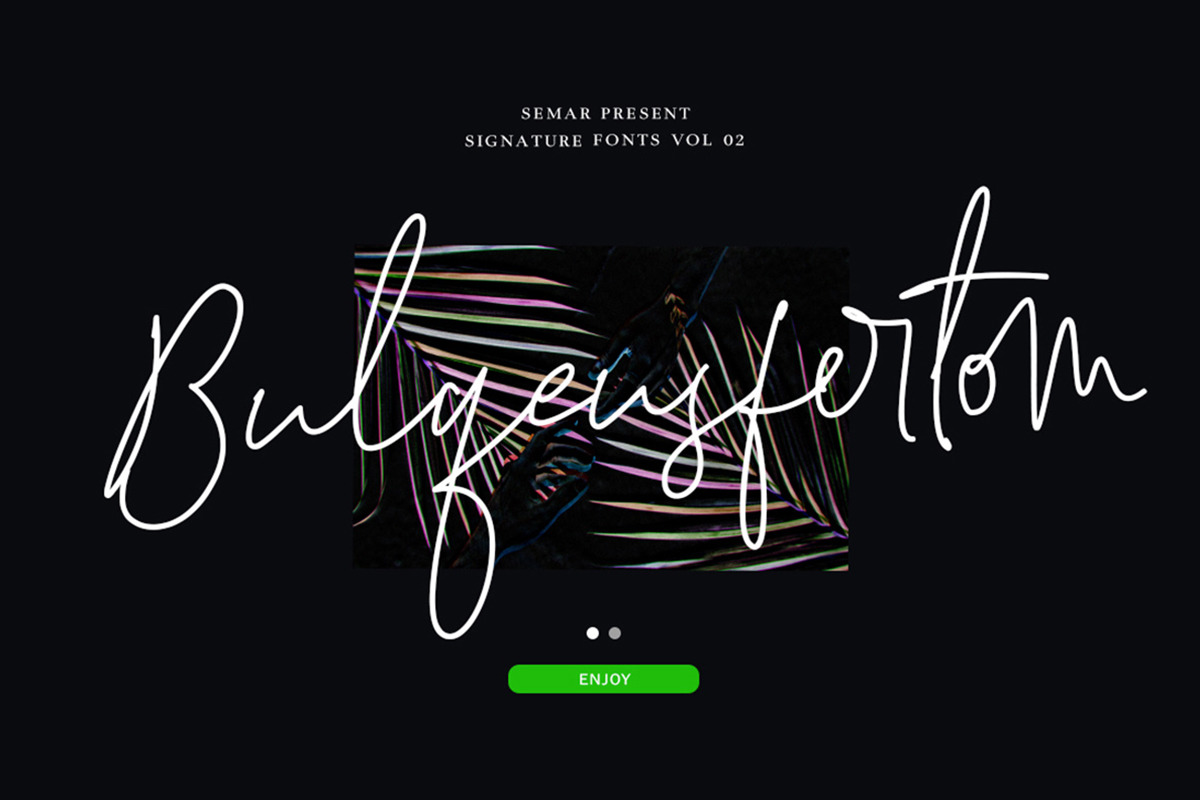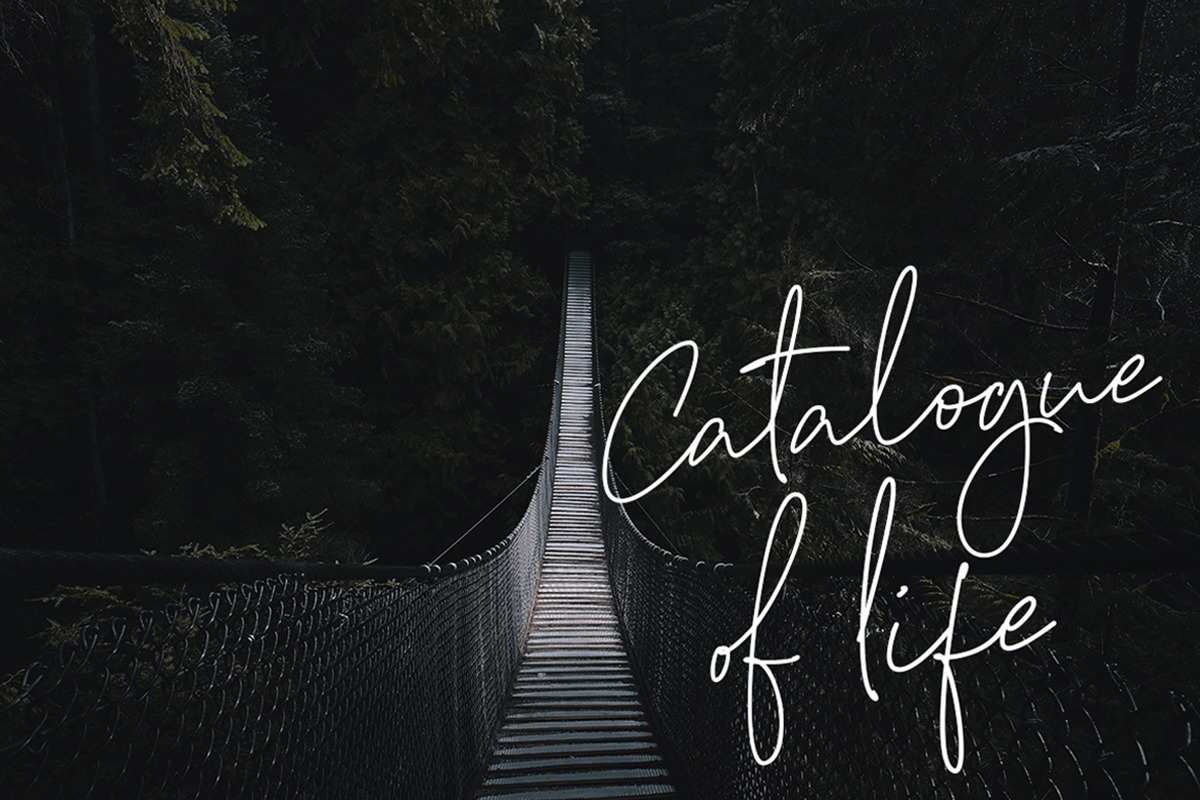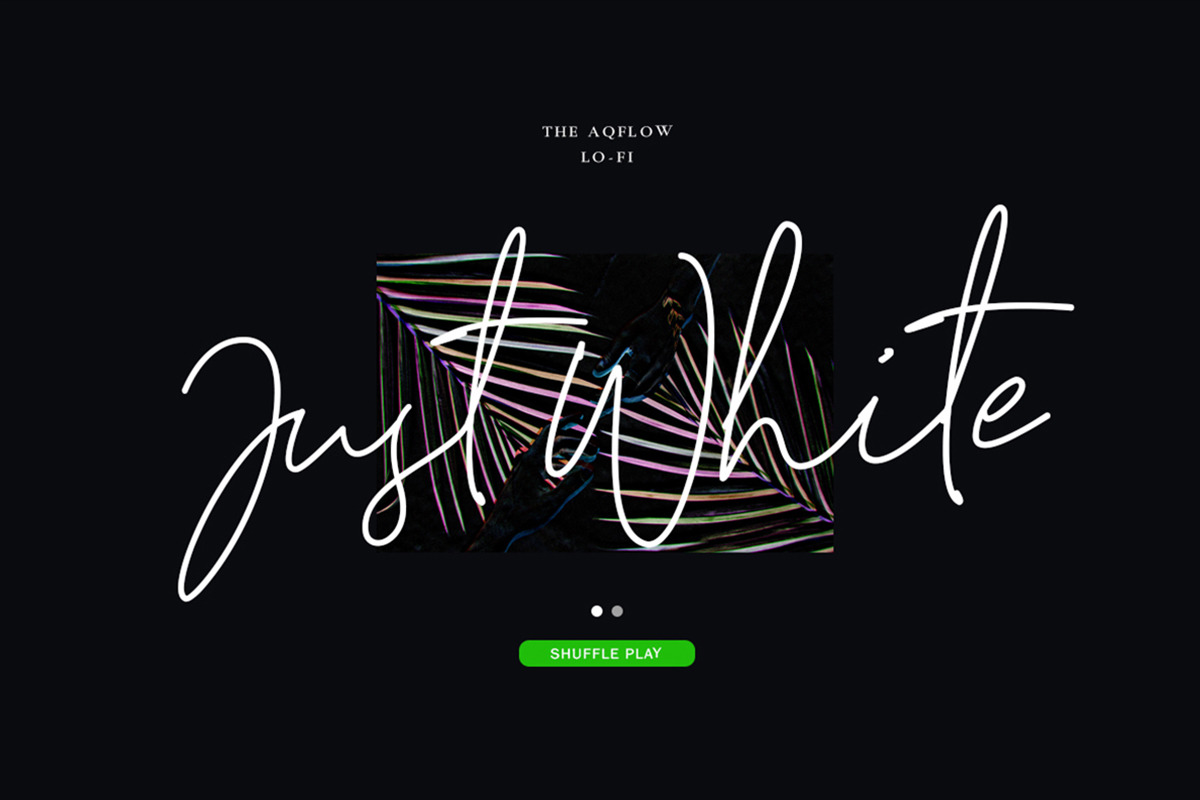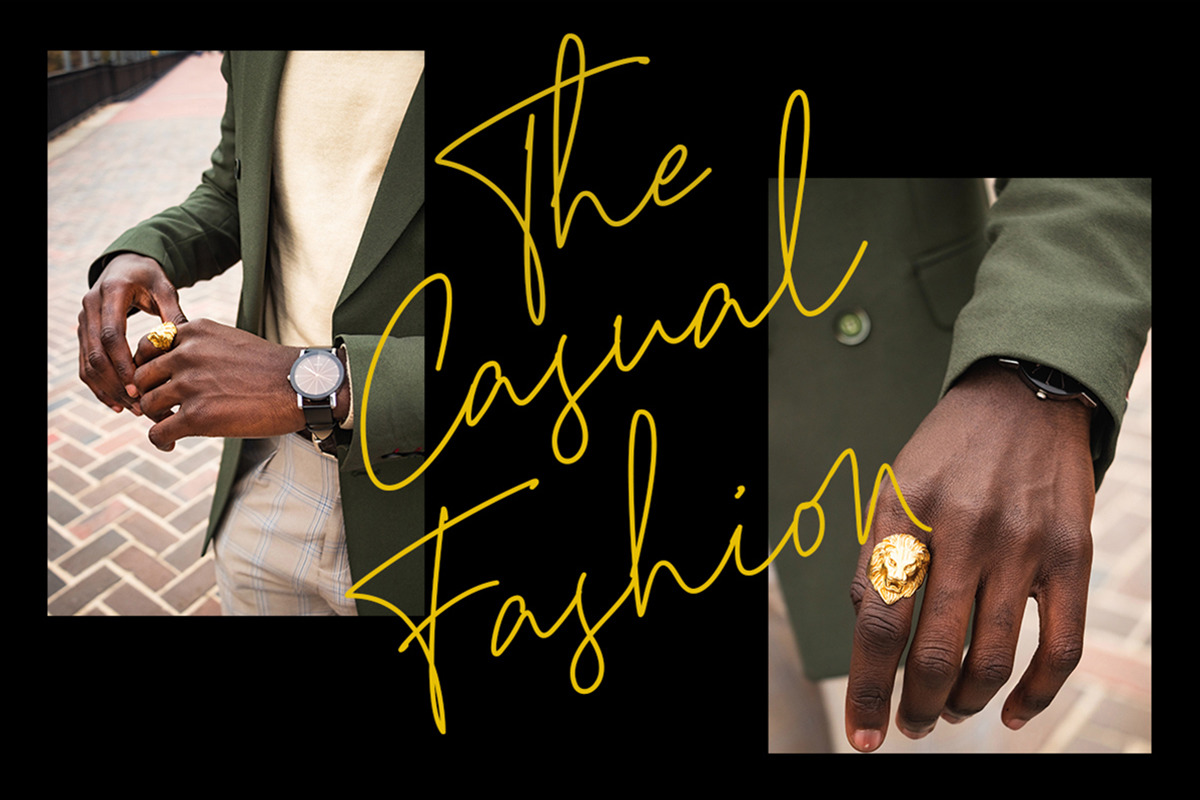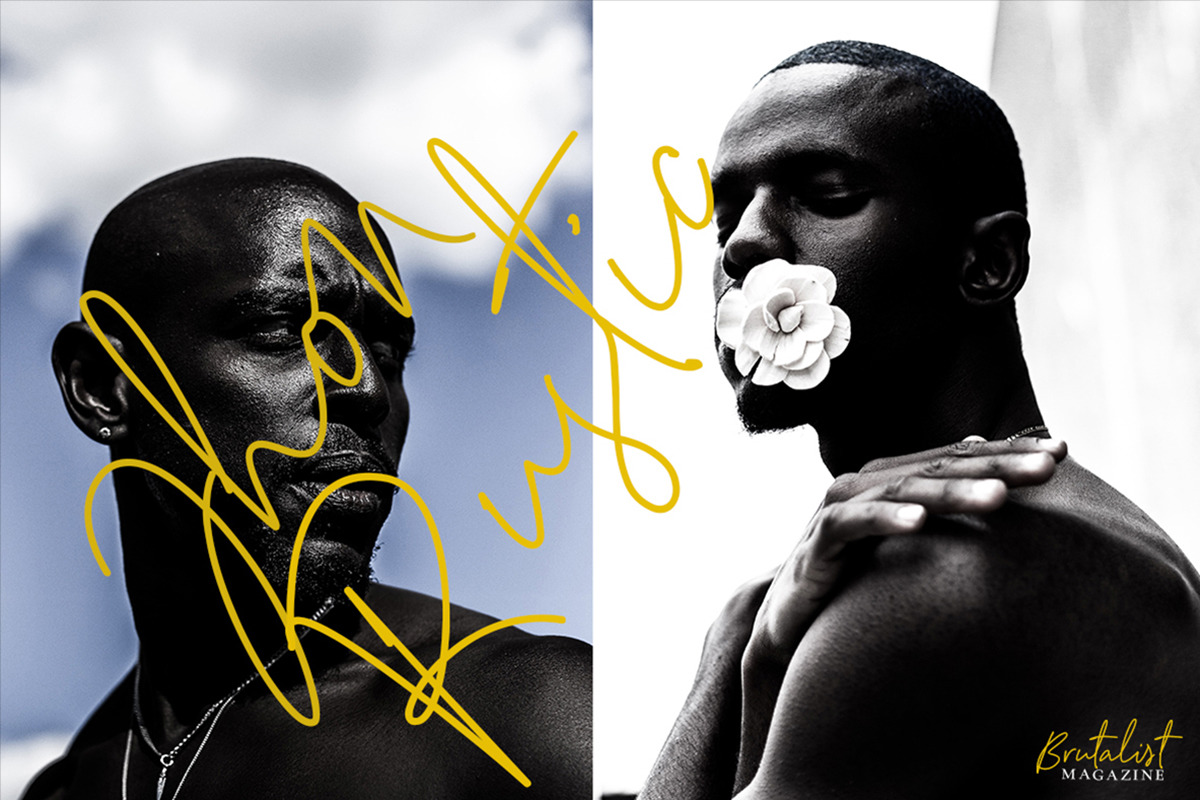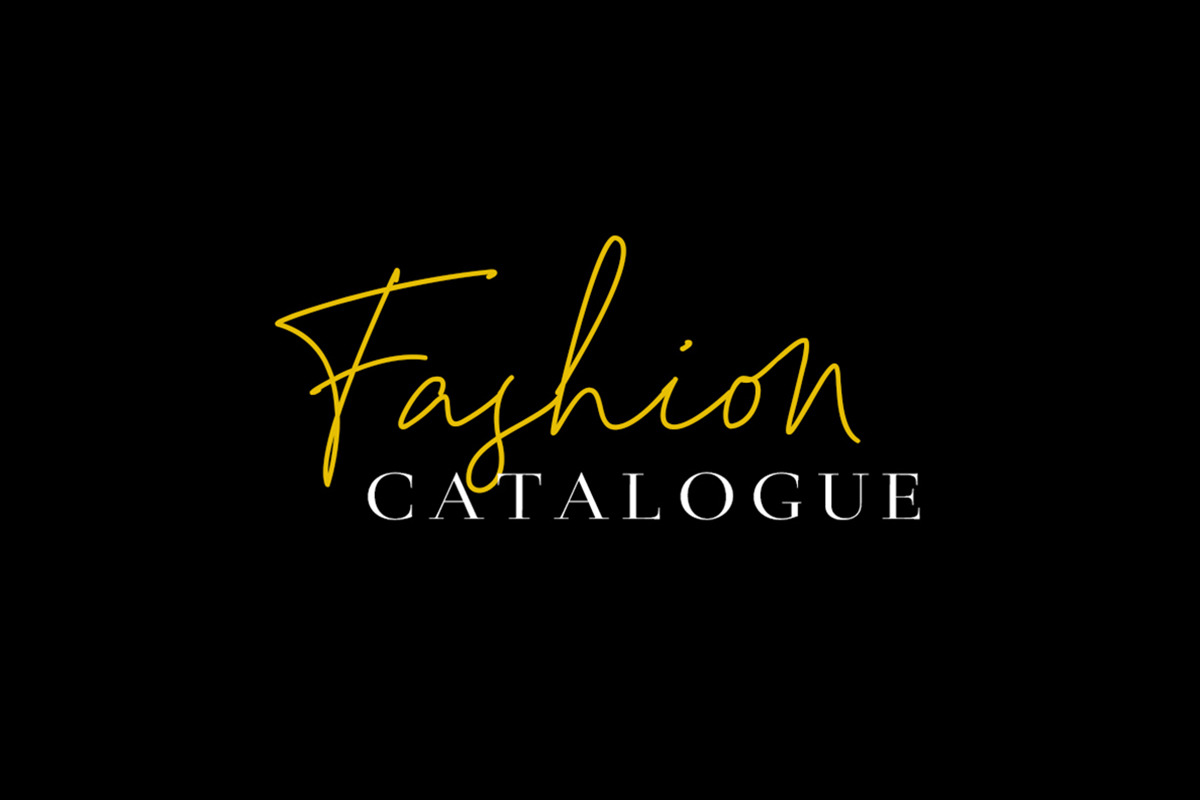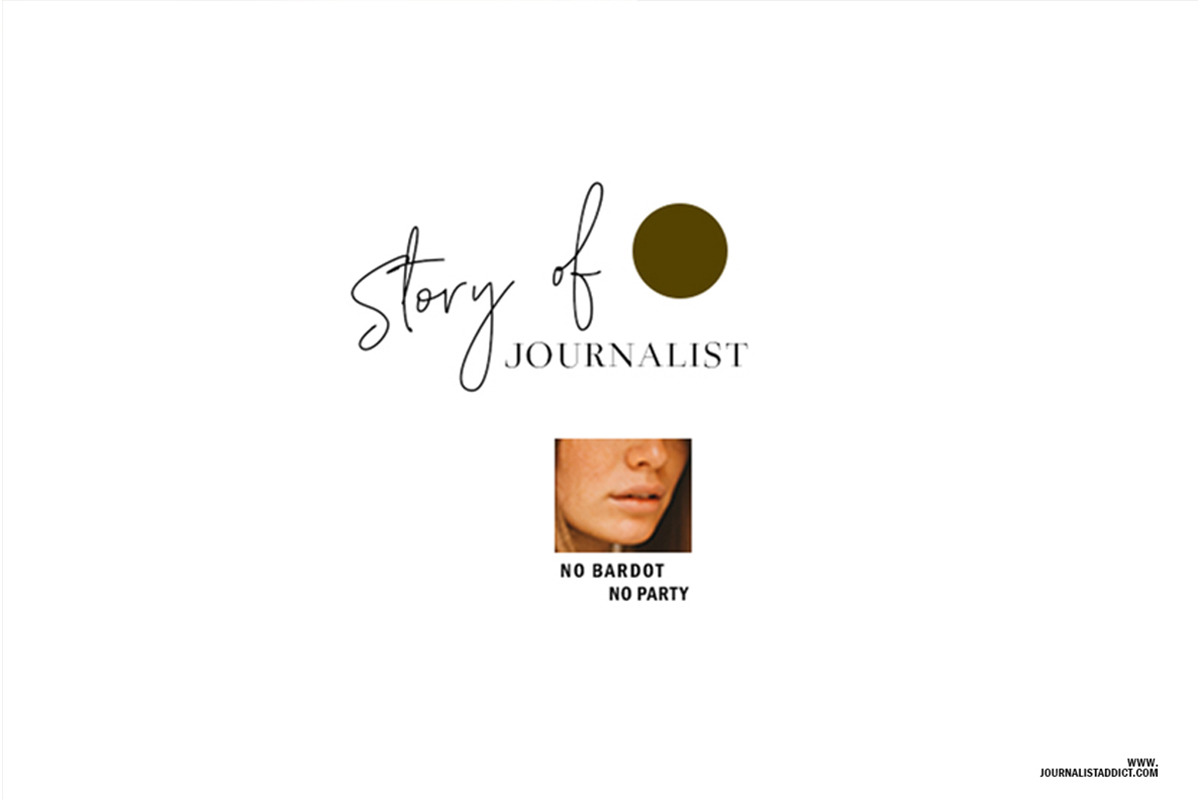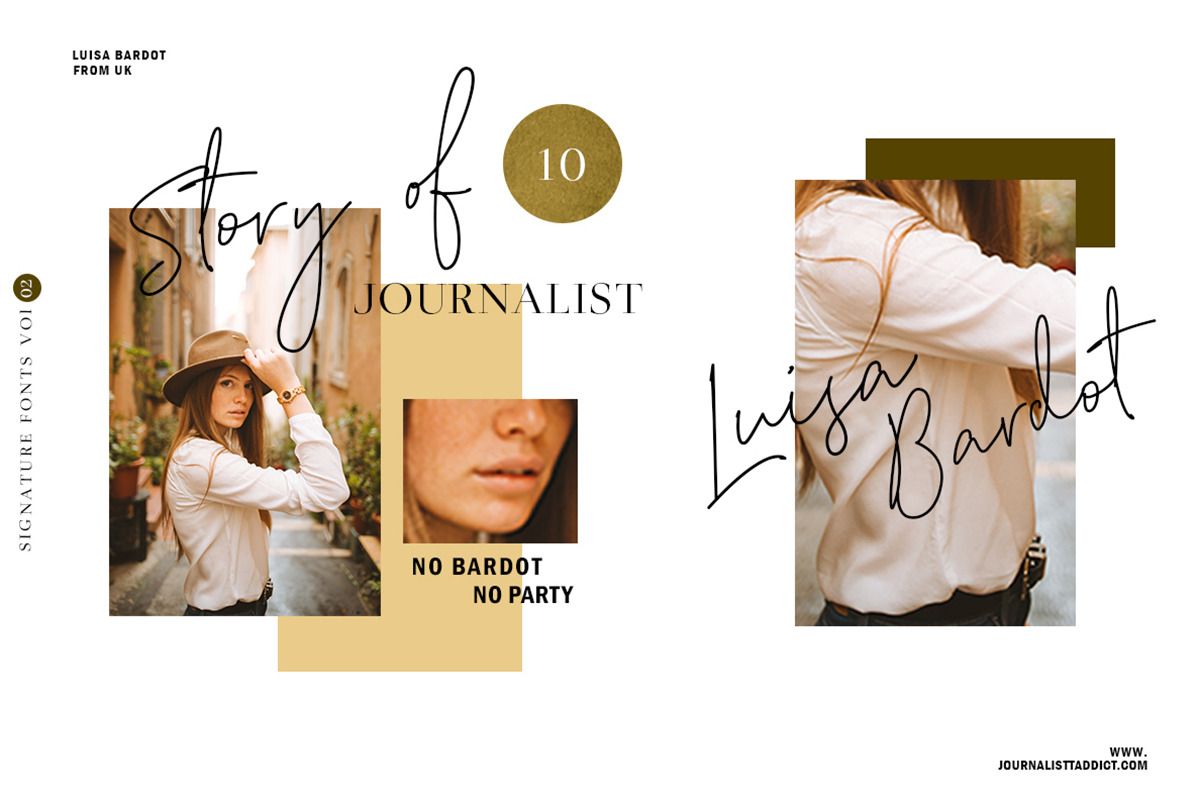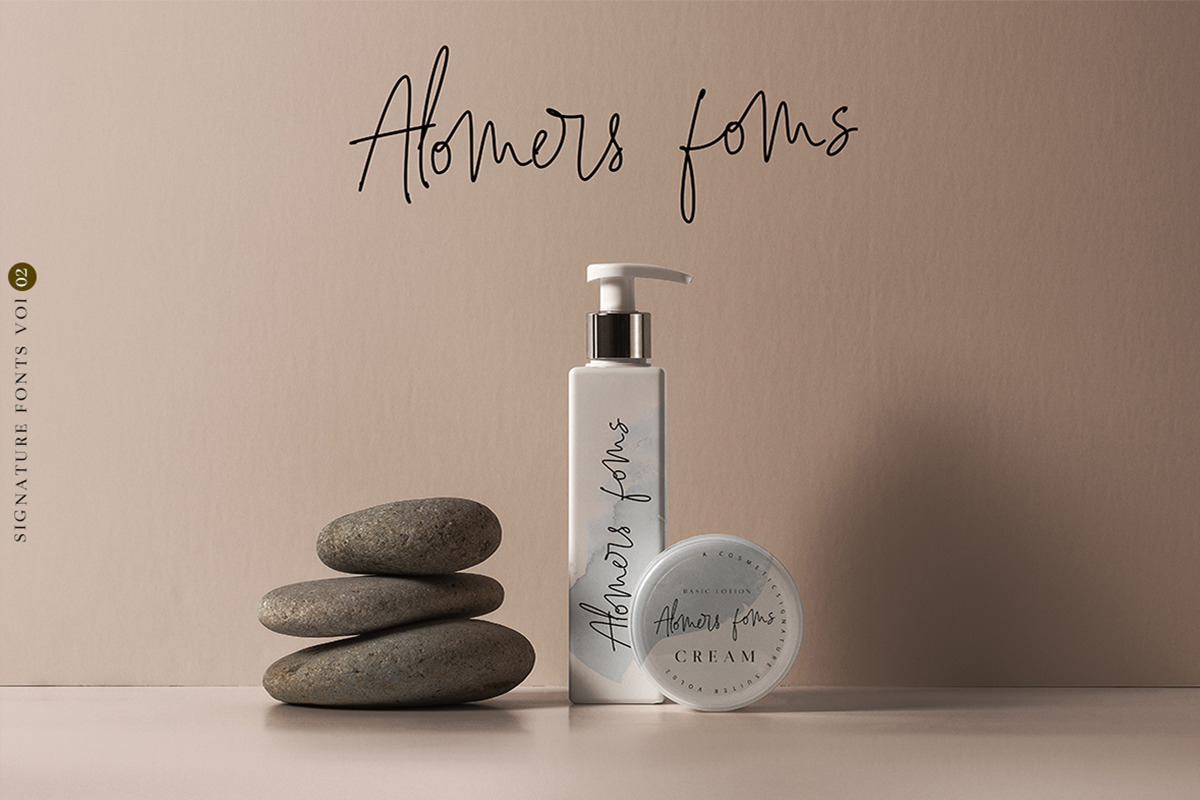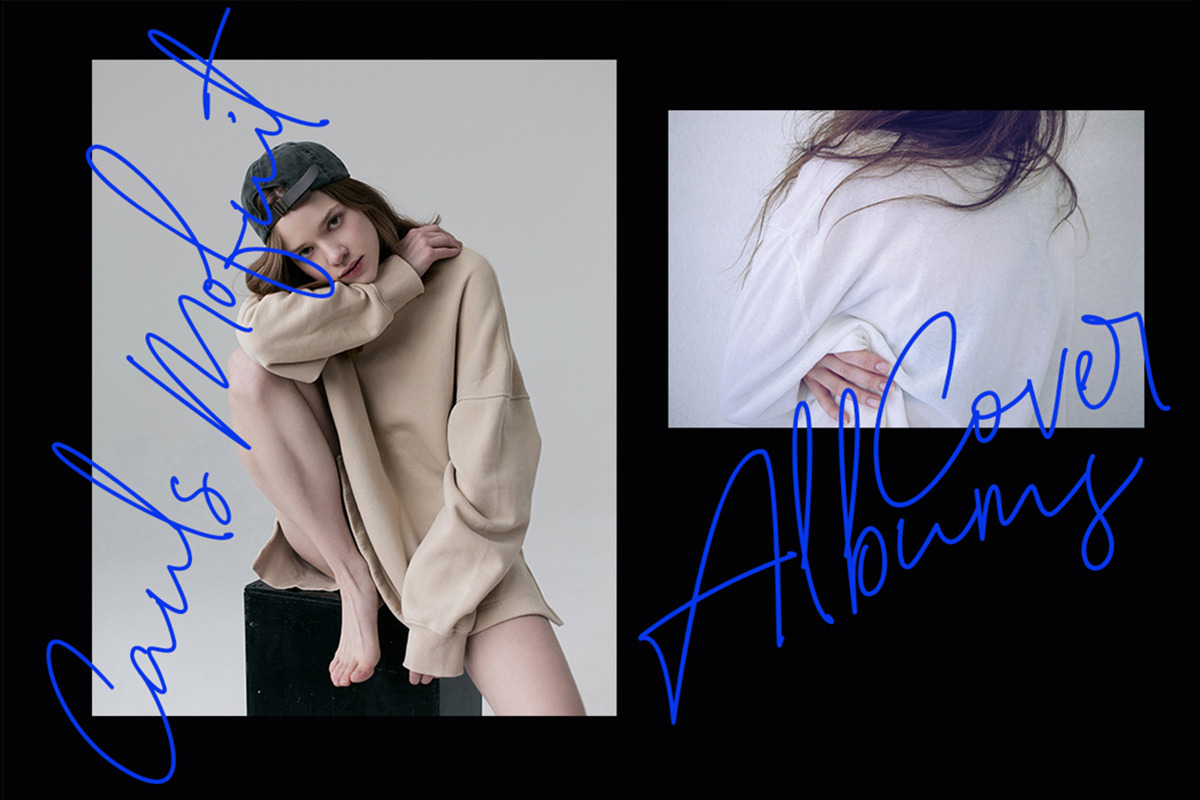
Bulqeusertom Font
"Bulqeusfertom" is an elegant signature fonts with confidence and courage. This font is very beautiful and cute available reguler and alternative style Perfect for logos, websites,Magazine,Quotes,YouTube thumbnails,Instagram stories,Casual Catalogue,Book covers etc.